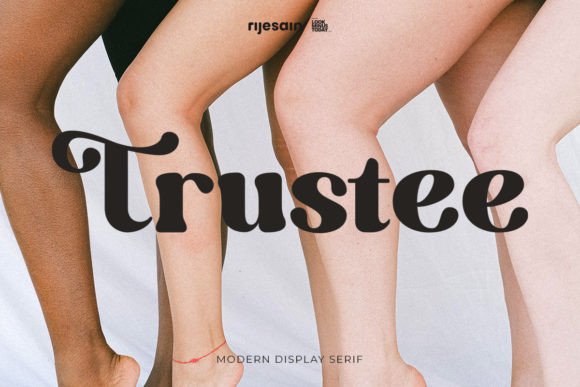
Embrace the allure of yesteryear with Trustee Font, a captivating display font that artfully weaves the charm of the past with the modernity of today. Let your designs transcend time as Trustee paints them with a touch of vintage elegance. Its graceful lines and understated minimalism lend themselves effortlessly to dynamic headlines and logos that demand attention. Transport your audience to an era of timeless style and sophistication as Trustee becomes the cornerstone of your captivating designs. Unleash your creativity and let the magic of the past inspire the future.
With Trustee Font, the possibilities are boundless. Dive into a world of vibrant pop art, where your designs burst with energy and personality. Its PUA encoding grants you effortless access to a treasure trove of glyphs and swashes, empowering you to add intricate details and expressive flourishes to your work. Whether you seek to evoke feelings of nostalgia or embrace the cutting-edge, Trustee Font seamlessly adapts to your vision. Experience the transformative power of a font that bridges the gap between heritage and innovation. Choose Trustee Font and watch your designs soar to new heights of brilliance.